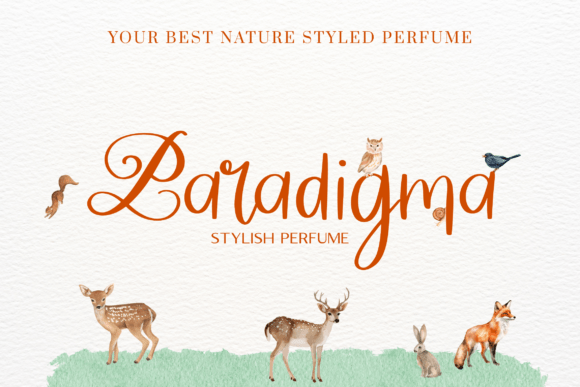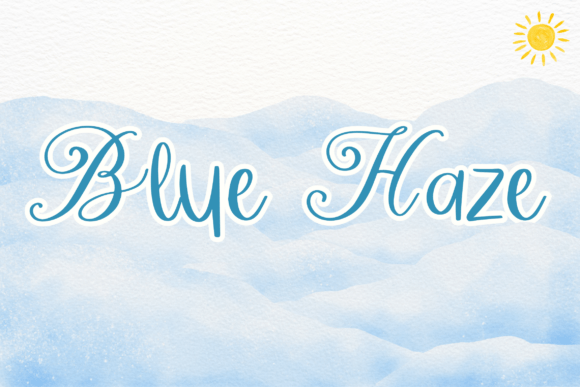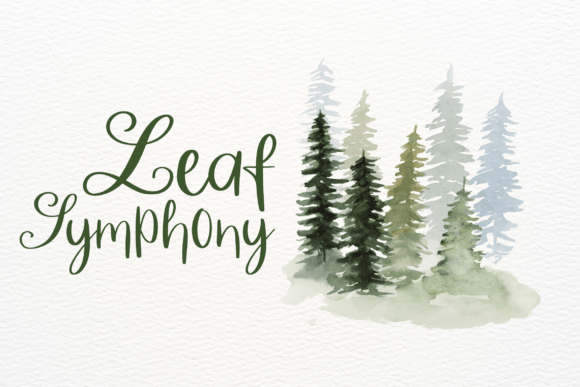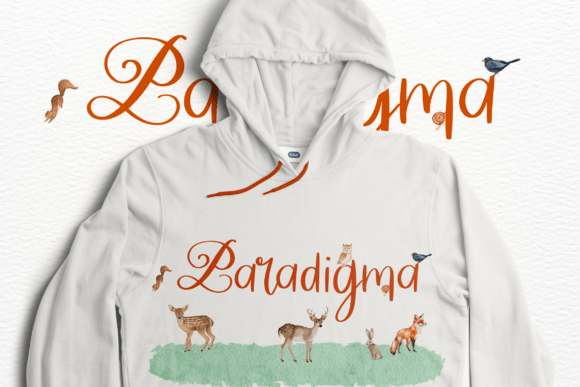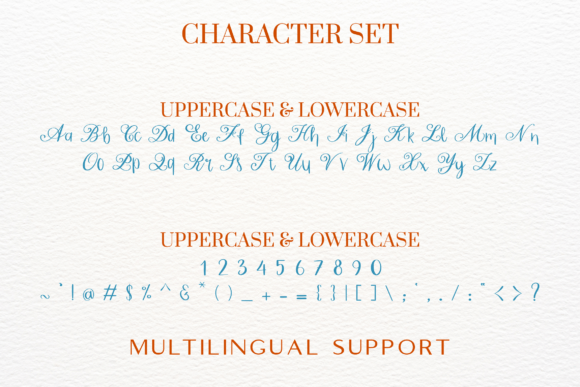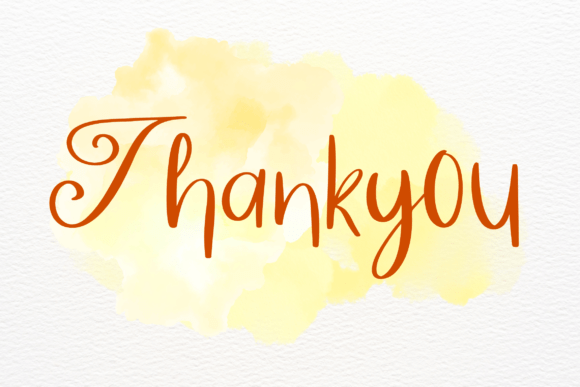
Introduction to Melanique Font
Imagine you’re sitting at your desk, staring at a blank canvas, and suddenly, the perfect idea strikes. You envision a beautiful wedding invitation, a stunning product label, or a charming social media post. The Melanique Font is the perfect design resource to bring your creative project to life. This elegant script font is designed to add a touch of sophistication and charm to any layout, making it a valuable addition to any designer’s toolkit.
With its smooth strokes and refined handwritten feel, the Melanique Font is perfect for creating high-quality designs that exude elegance and personality. Whether you’re working on a free download or a paid project, this font is sure to impress. And the best part? It’s incredibly easy to use, even for those without extensive design experience. Let’s dive into the world of Melanique Font and discover why it’s a must-have for any designer.
Key Features of Melanique Font
- Unique, hand-drawn design with a high level of detail, perfect for creative projects that require a personal touch.
- Perfect for use in a variety of creative projects, from logos and branding materials to digital products and print designs.
Honest Review: Melanique Font
One of the standout features of Melanique Font is its high quality. The font is well-designed, with a unique and elegant style that’s perfect for a variety of design applications. The transparent background option is also a nice touch, allowing designers to easily customize their designs without any distractions.
What works well: ✨ High-quality design, ✨ Unique and elegant style, ✨ Transparent background option
- Unique and elegant style
However, there are a few limitations to consider. The font may not be suitable for all design projects, and the free download option may come with certain restrictions. Additionally, some users may find the font to be a bit too bold or overpowering.
⚠️ Limited design versatility ⚠️
Overall, I’d say the Melanique Font is a solid choice for designers looking for a high-quality, free design resource. While it may not be perfect for every project, it’s definitely worth considering for your next creative project.
Tips for Getting the Most Out of Melanique Font
Use Melanique Font in combination with a transparent background to create a visually appealing design. Experiment with different font sizes, colors, and styles to find the perfect look for your creative project.
Melanique Font is ideal for a variety of design projects, including logos, business cards, and brochures. Its high quality and versatility make it a great resource for designers and non-designers alike.